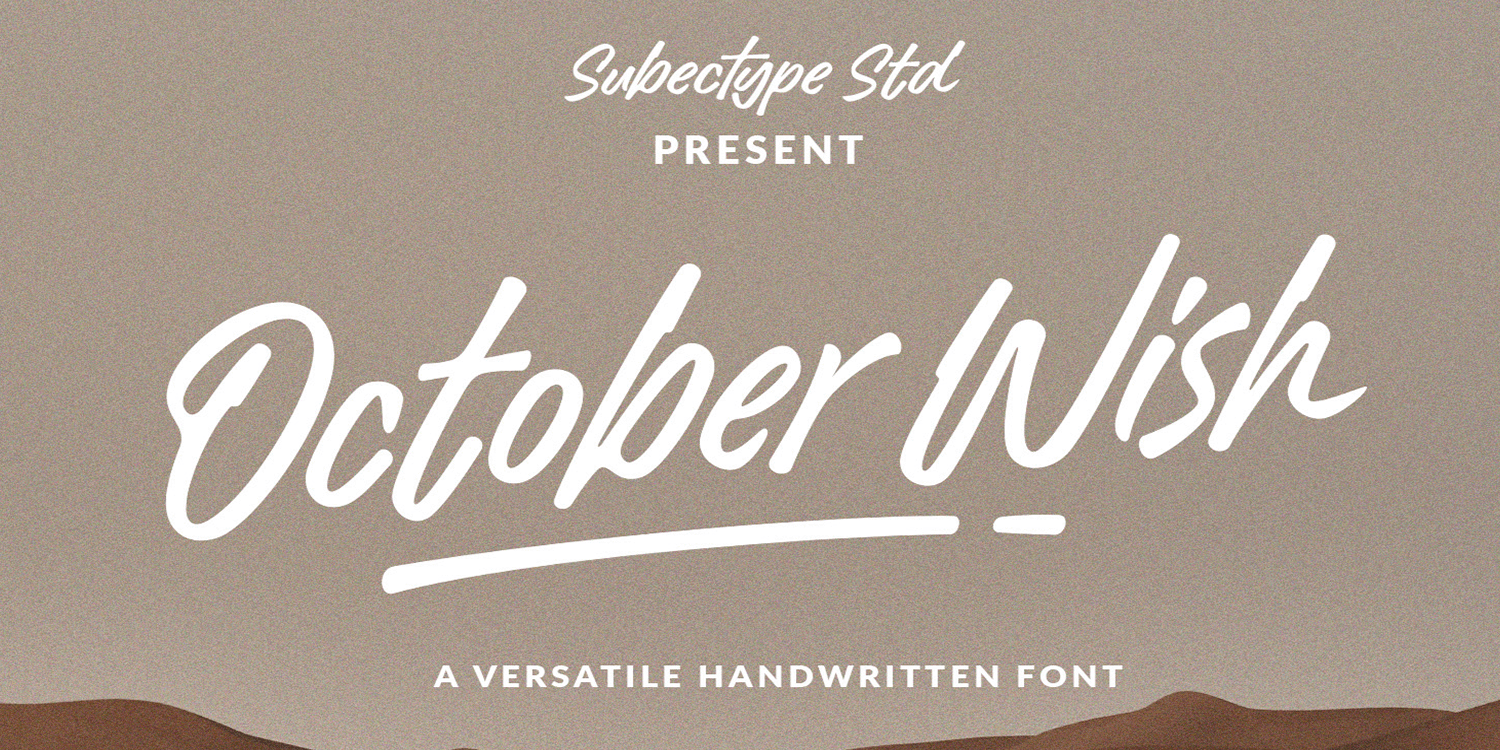
October Wish Font is perfect for autumn wedding invitations, fall festival promotions, harvest celebration materials, Halloween party designs, cozy café seasonal menus, autumn fashion campaigns, thanksgiving greeting cards, pumpkin spice product packaging, fall foliage photography credits, and wishfully seasonal marketing communications.
October Wish Font is exciting because it captures the wistful magic and golden nostalgia of autumn's most enchanting moments with its gracefully falling letterforms that seem touched by gentle autumn breezes and carry the hopeful longing of wishes made on falling leaves. Its romantically seasonal character design reflects both the melancholic beauty of autumn transitions and the warm anticipation that makes October feel like nature's most romantic month, making it perfect for brands celebrating seasonal change and autumnal dreams.
October Wish Font family includes thin, light, regular, medium, bold, and black weights, each with corresponding italic versions. The font family also features autumn ornaments, leaf-inspired ligatures, seasonal symbols, and wishful decorative elements that enhance its nostalgic aesthetic and fall-focused versatility.
This wishfully romantic typeface represents the perfect fusion of seasonal beauty and hopeful longing. October Wish Font Free Download allows designers to experience its autumn appeal before making a commercial commitment. The font's ability to convey both seasonal nostalgia and romantic hope makes it ideal for seasonal businesses, wedding planners, and lifestyle brands targeting audiences seeking authentic autumn experiences and romantic seasonal celebrations.
Whether you're developing seasonal brand identities, creating autumn celebration materials, or designing fall-focused communications, October Wish Font brings an unmistakable sense of autumnal magic and seasonal romance to every project. Its wishful character and October heritage create emotional connections that resonate with audiences seeking cozy seasonal experiences and romantic autumn moments.
The font's versatility excels in seasonal and romantic environments where nostalgia and autumn appeal are cherished. Its magical character makes it particularly effective for wedding planners, seasonal retailers, cozy cafés, and lifestyle brands seeking to establish warm relationships with audiences who appreciate autumn's romantic beauty and seasonal traditions.
For designers working on projects requiring genuine autumn magic and seasonal appeal, October Wish Font provides an exceptional solution. Its wishfully romantic presence and comprehensive autumn-themed elements offer the tools needed for creating truly nostalgic communications, while its seasonal enchantment ensures your designs capture the golden beauty and hopeful longing that defines the most magical October moments and cherished autumn memories.